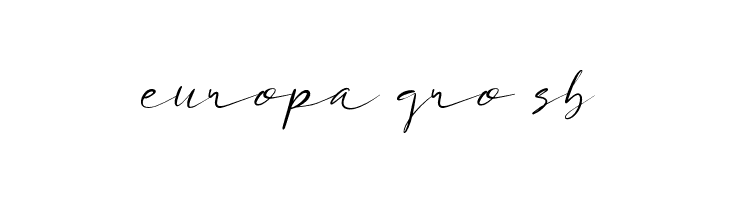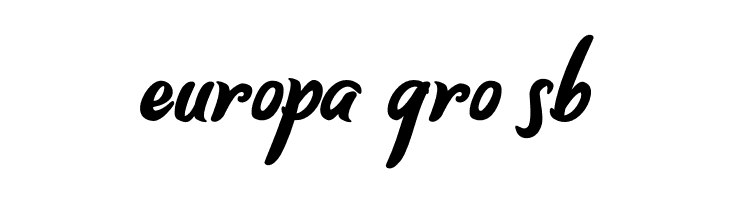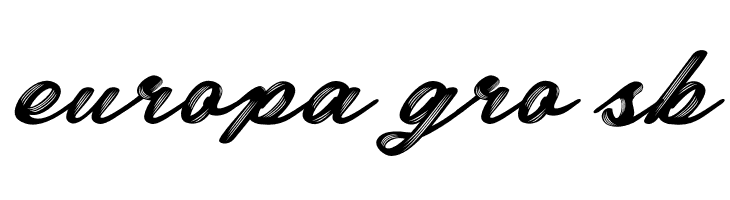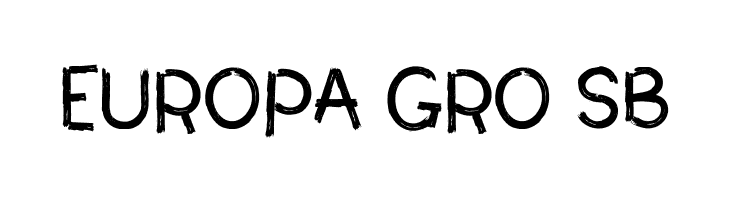
A playful, casual script font with smooth, flowing lines and a handwritten appearance.
A cursive, flowing font with elegant, elongated strokes.
A lively, handwritten font with fluid strokes and medium contrast.
An elegant script font with flowing, cursive strokes and graceful flourishes.
A playful, handwritten cursive font with a smooth and flowing style.
A bold and dynamic script font with flowing, cursive characters.
A flowing, cursive font with elegant, sweeping strokes and a handwritten appearance.
A bold, flowing script font with elegant, cursive letterforms.
A bold, hand-drawn font with a rough, energetic texture.
A bold, expressive handwritten font with fluid strokes and a playful style.